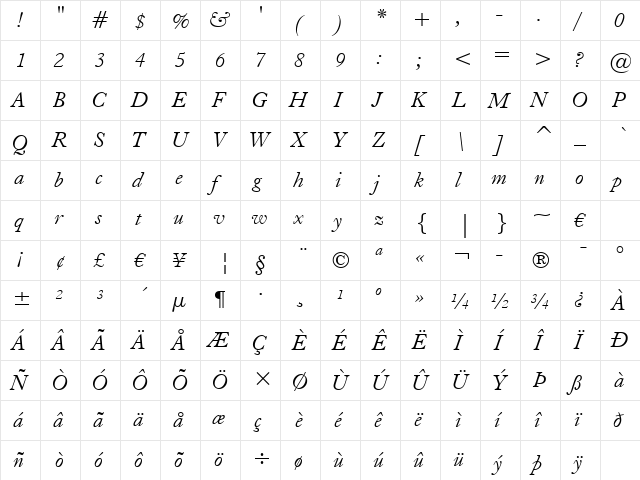
CaslonOldFace BT Italic Font Preview
CaslonOldFace BT Italic
Design Context for CaslonOldFace BT Typeface
CaslonOldFace BT is a composed and adaptable typeface that performs quietly and consistently across a wide range of design contexts. Its italic angle brings a sense of urgency and motion to the letterforms.
Pro Tip: Try CaslonOldFace BT for annotation and caption copy alongside an upright companion — the contrast in angle creates a dynamic but ordered typographic system.